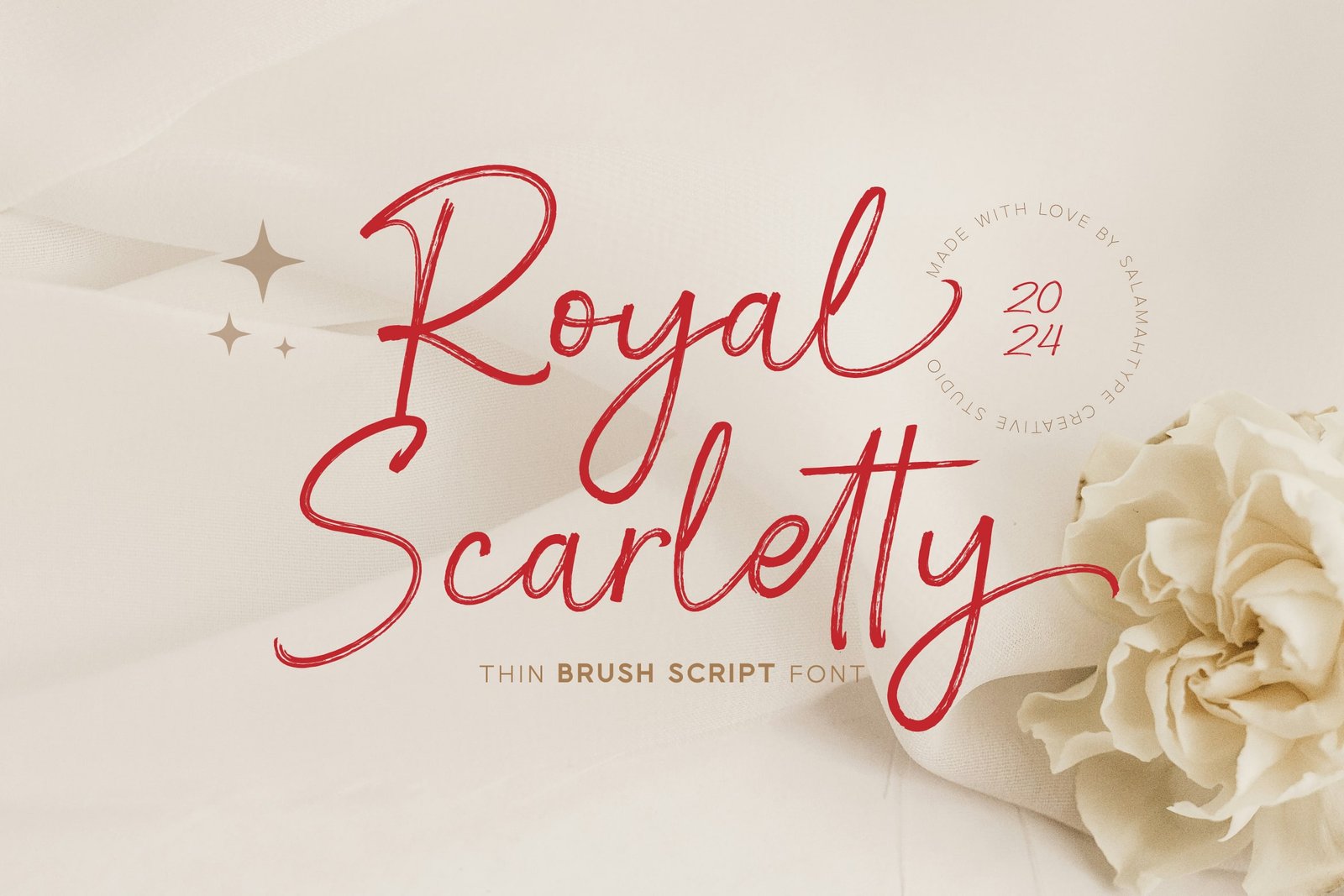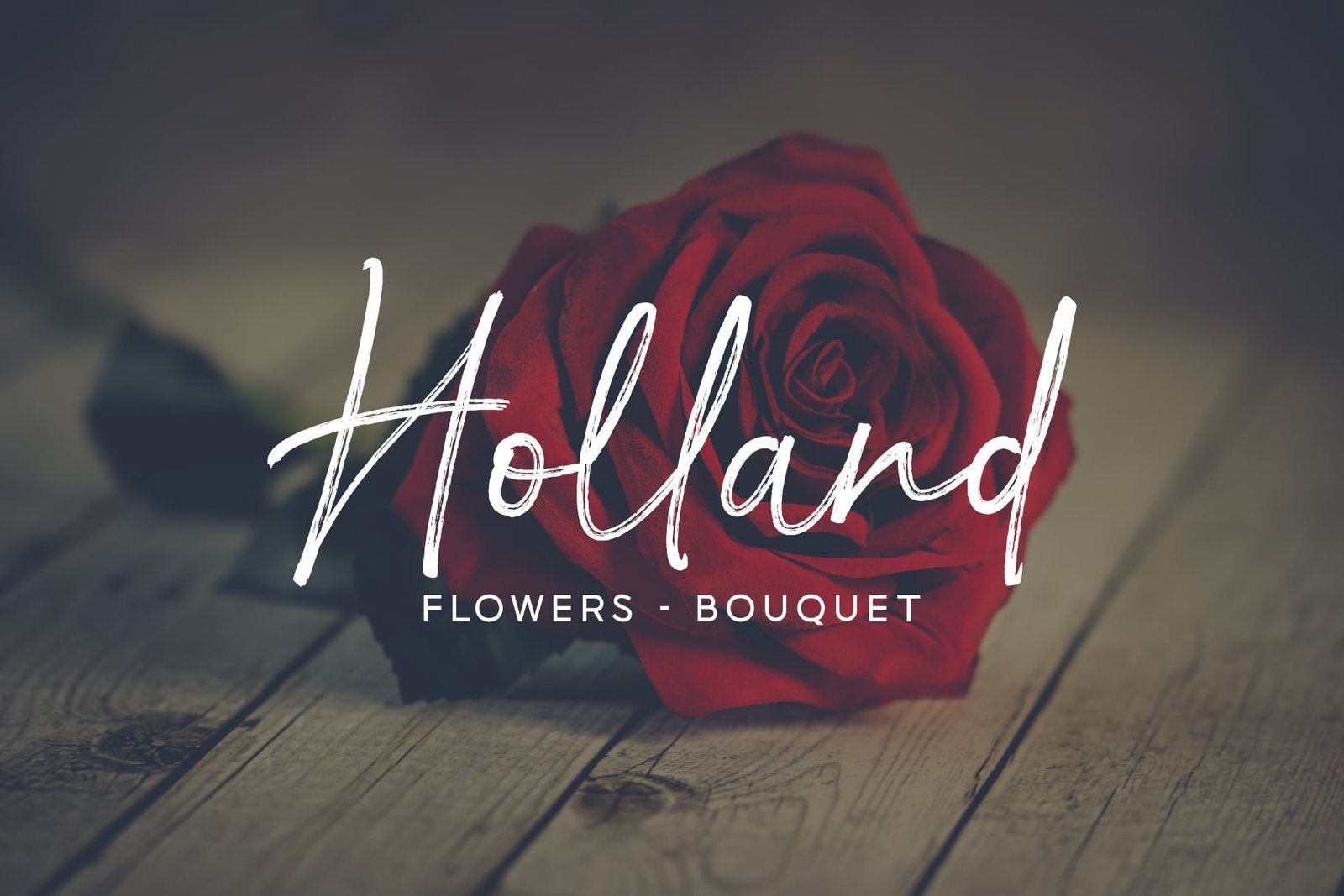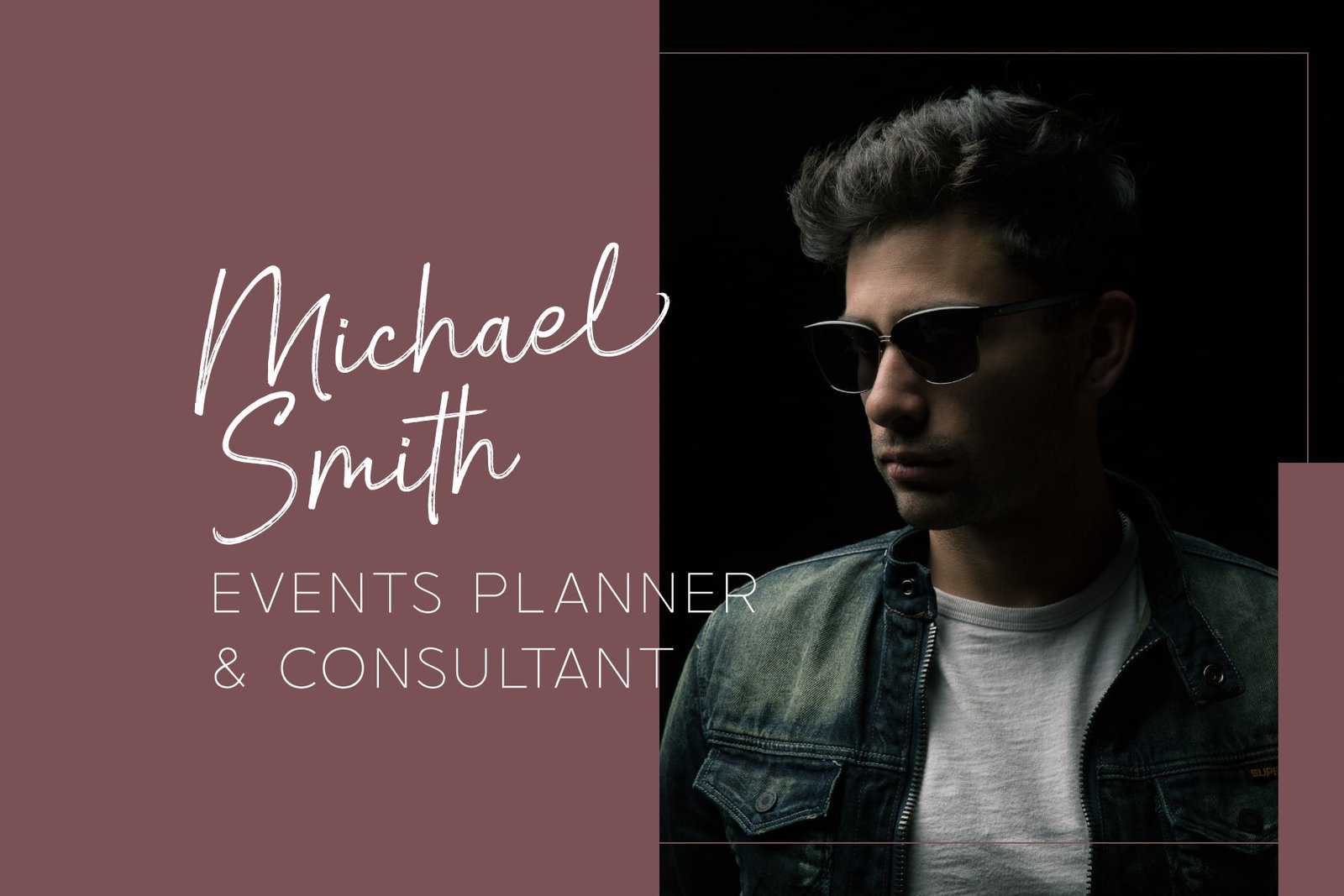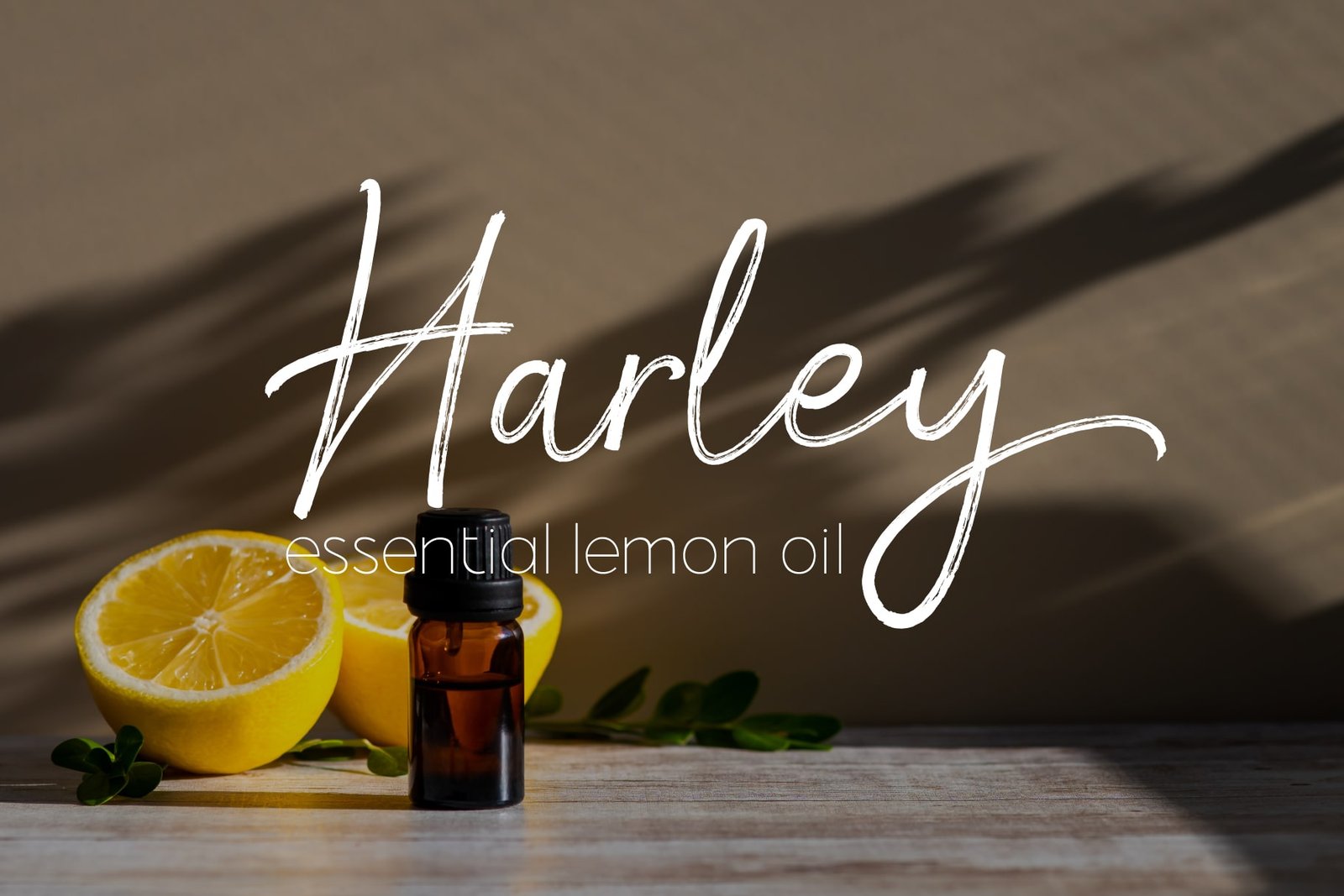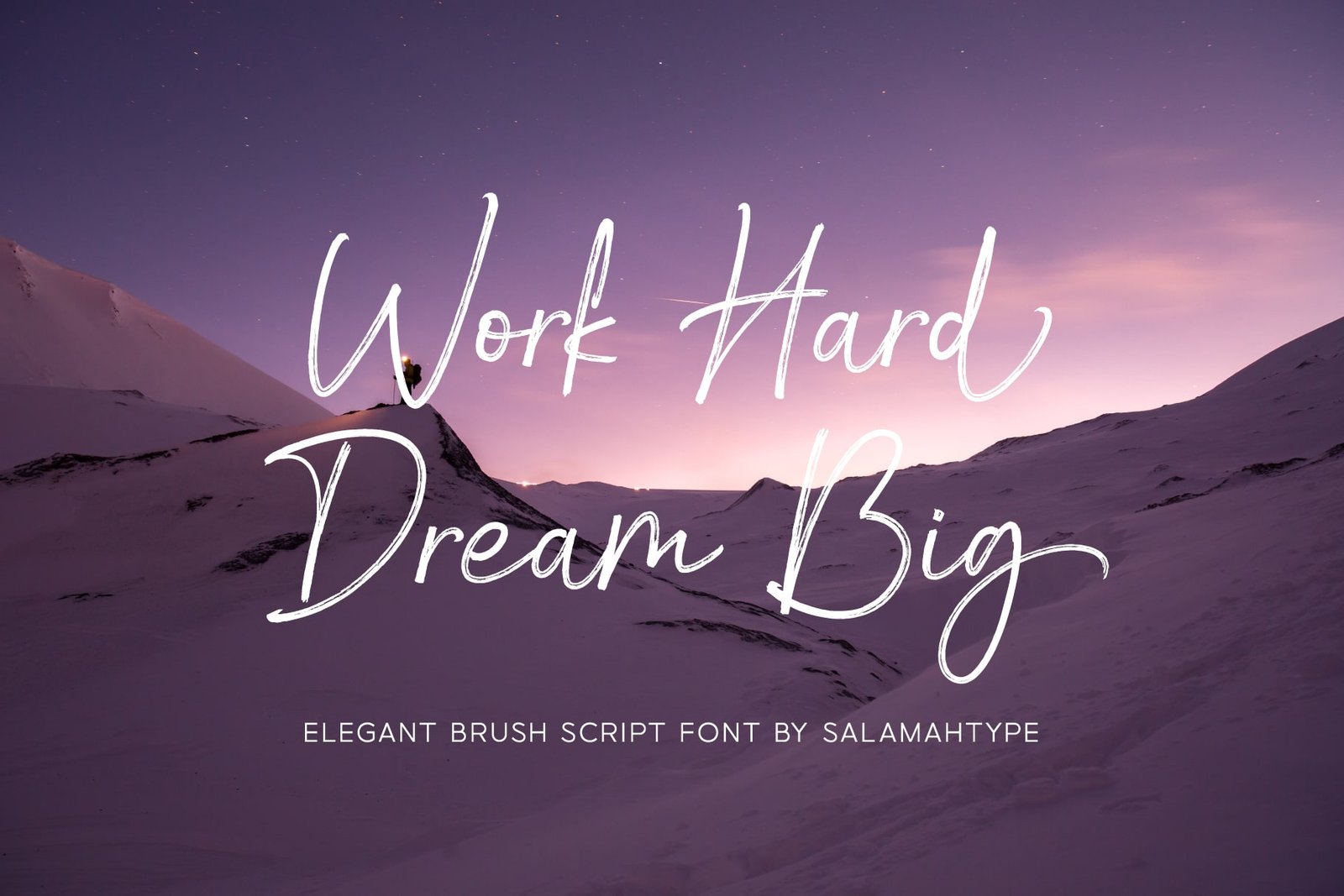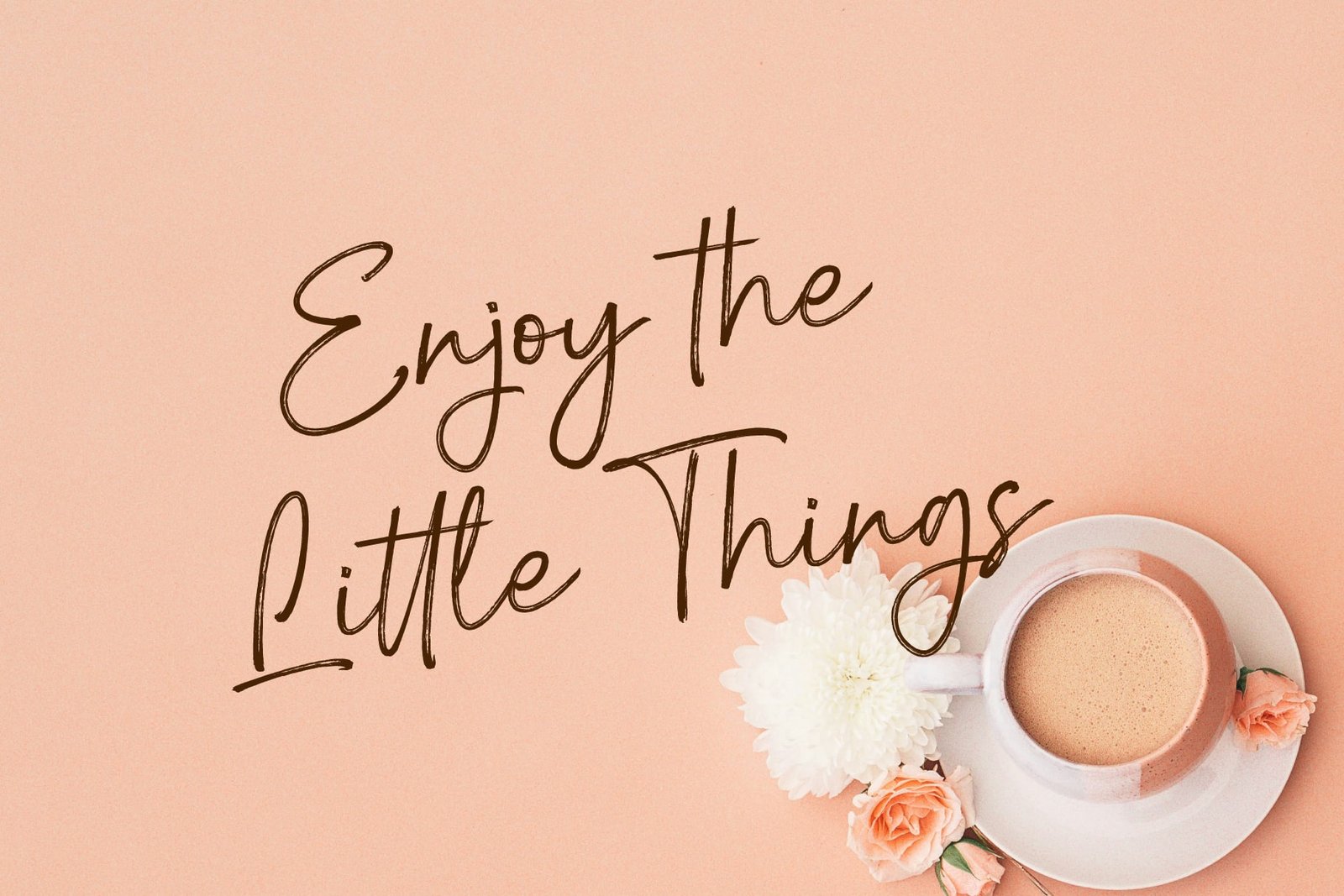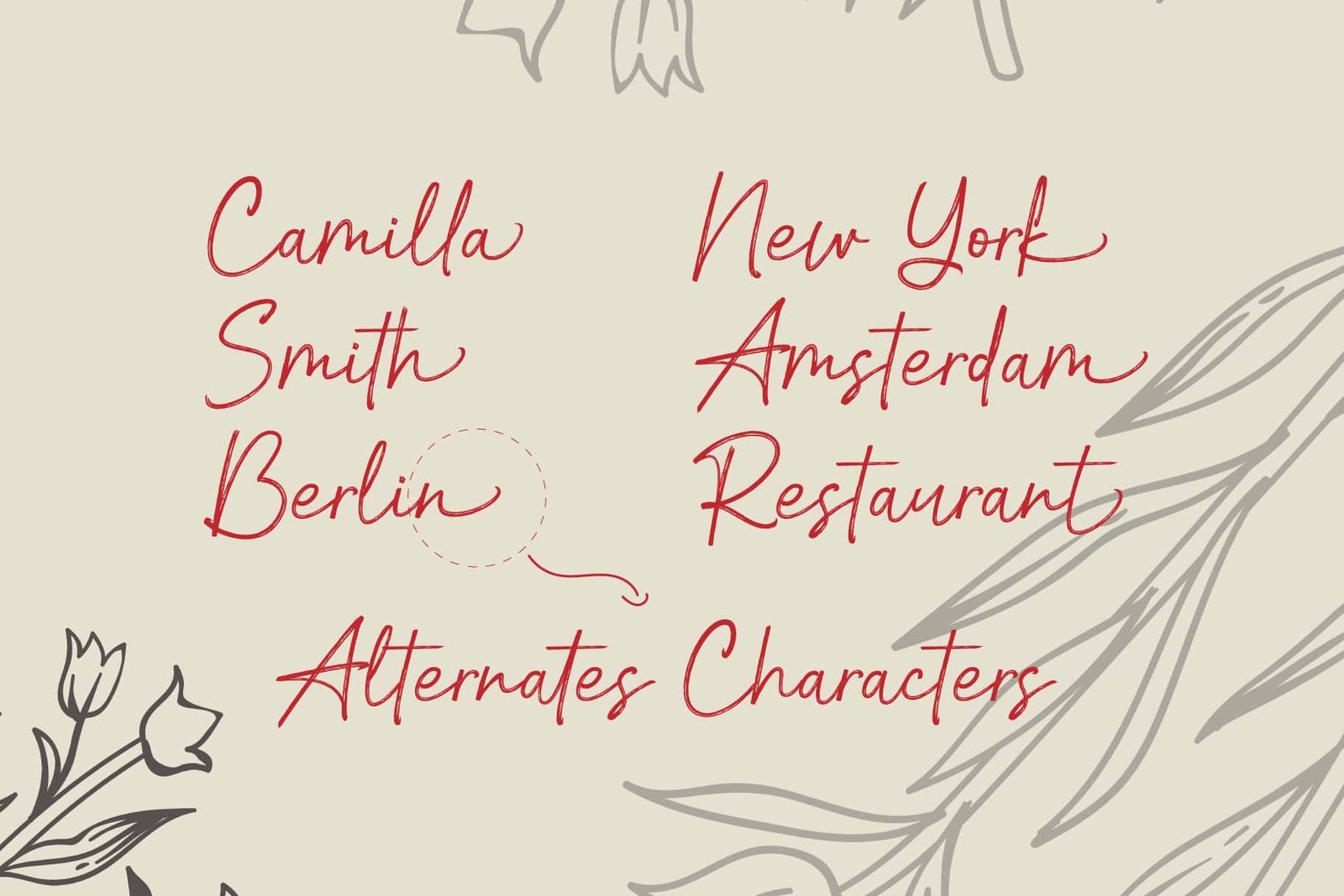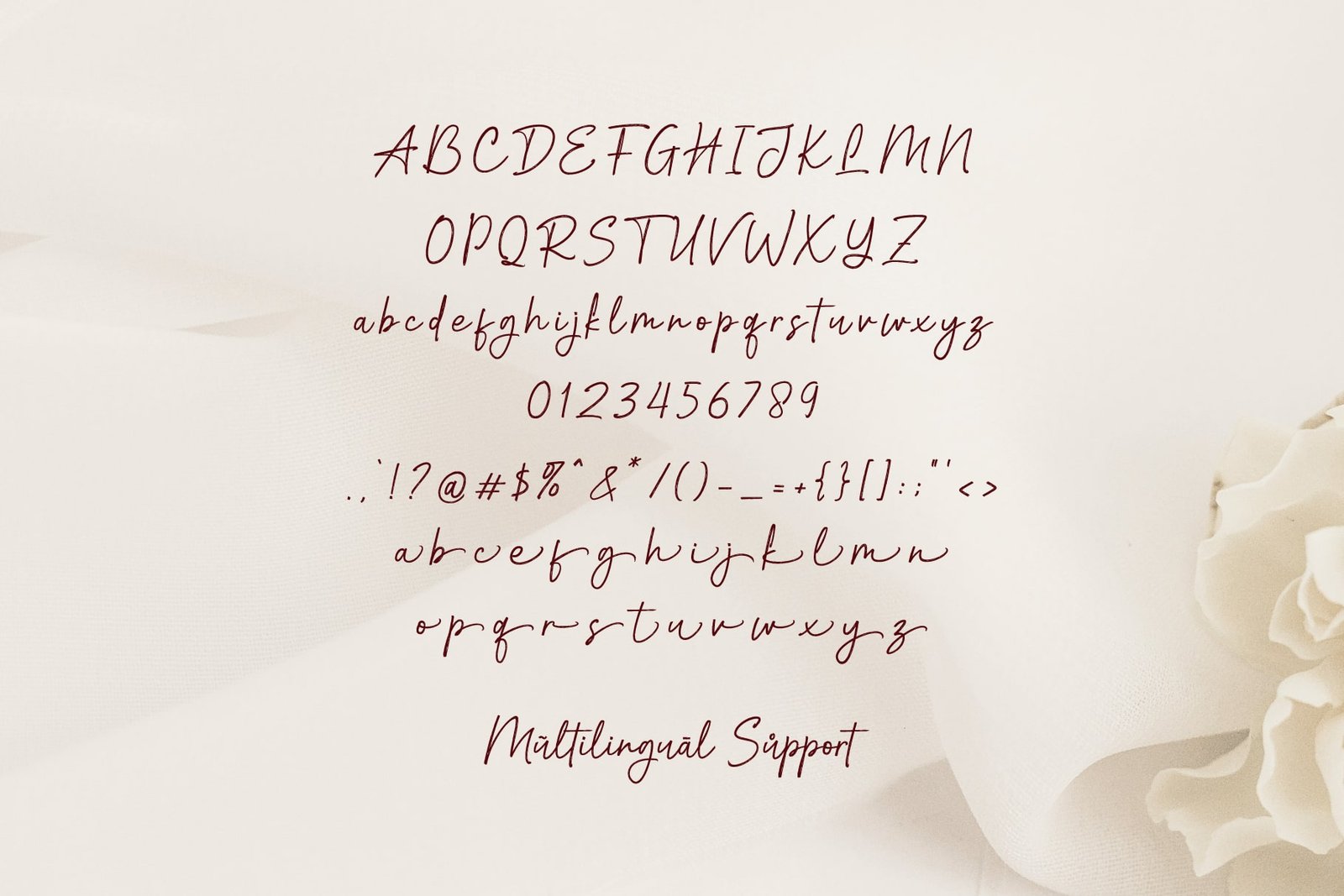
Royal Scarletty Script Preview
Royal Scarletty Script
About the Font
Introducing "Royal Scarletty" our thin brush script font, which will add a touch of refinement to your design templates. Her smooth strokes and flowing hand-drawn style give her a sophisticated yet creative look. This typeface is perfect for branding, invitations, and digital projects, adding elegance and charm to any creative endeavor.Features :- Uppercase and lowercase - Numbers and punctuation - TTF, OTF, and Web Font - Multilingual - Ligatures - Alternates